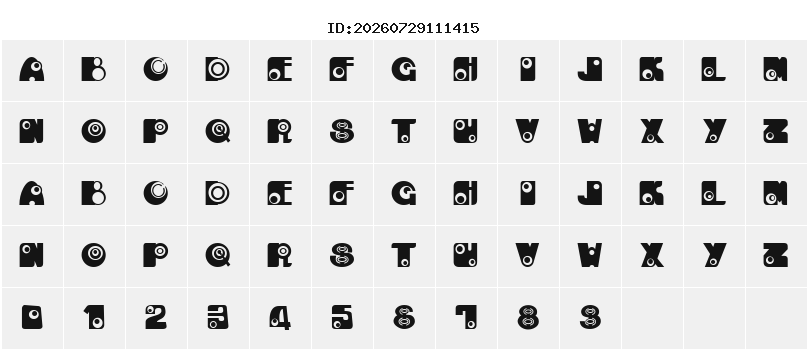
kan Preview
About kan.ttf
kan.ttf is a modern, elegant sans-serif font designed for ultimate readability and visual harmony. Perfect for branding, headlines, web design, and print materials.